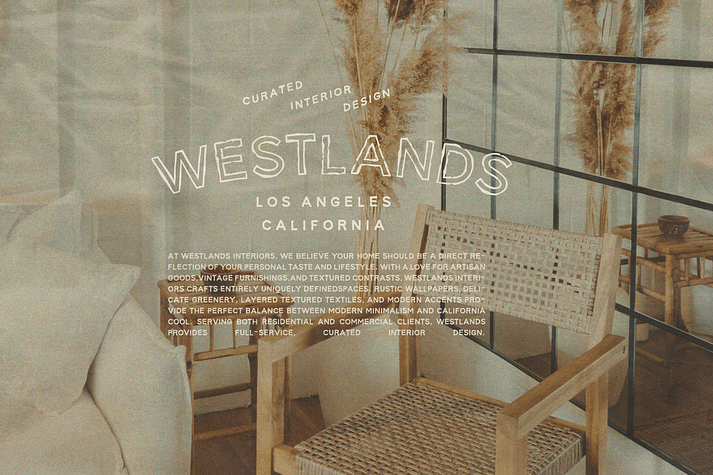
Merchant
Merchant is a sans serif font family. This typeface has two styles and was published by Nicky Laatz.
Say hello to Merchant Sans - a rustic, rough-edged, all-caps sans. Perfect for bold, earthy branding and design. Great for overlaying over images too. Available in both solid and outlined versions.